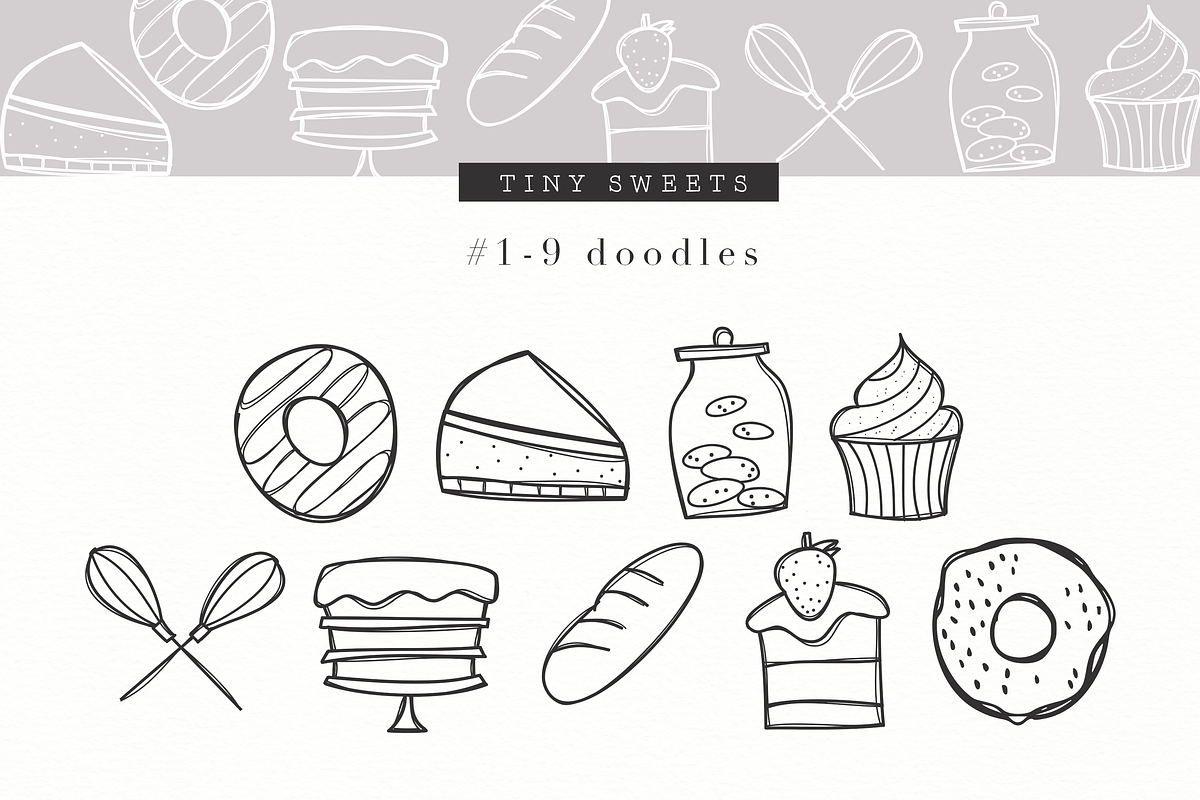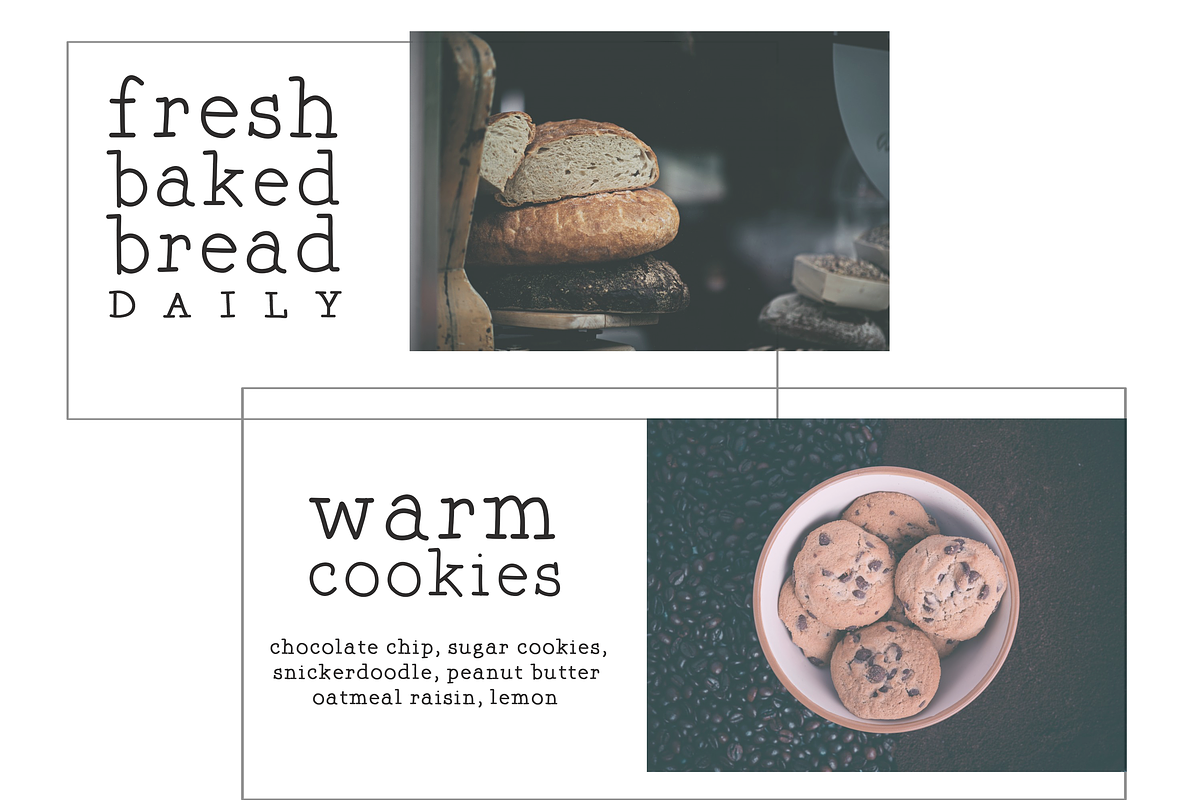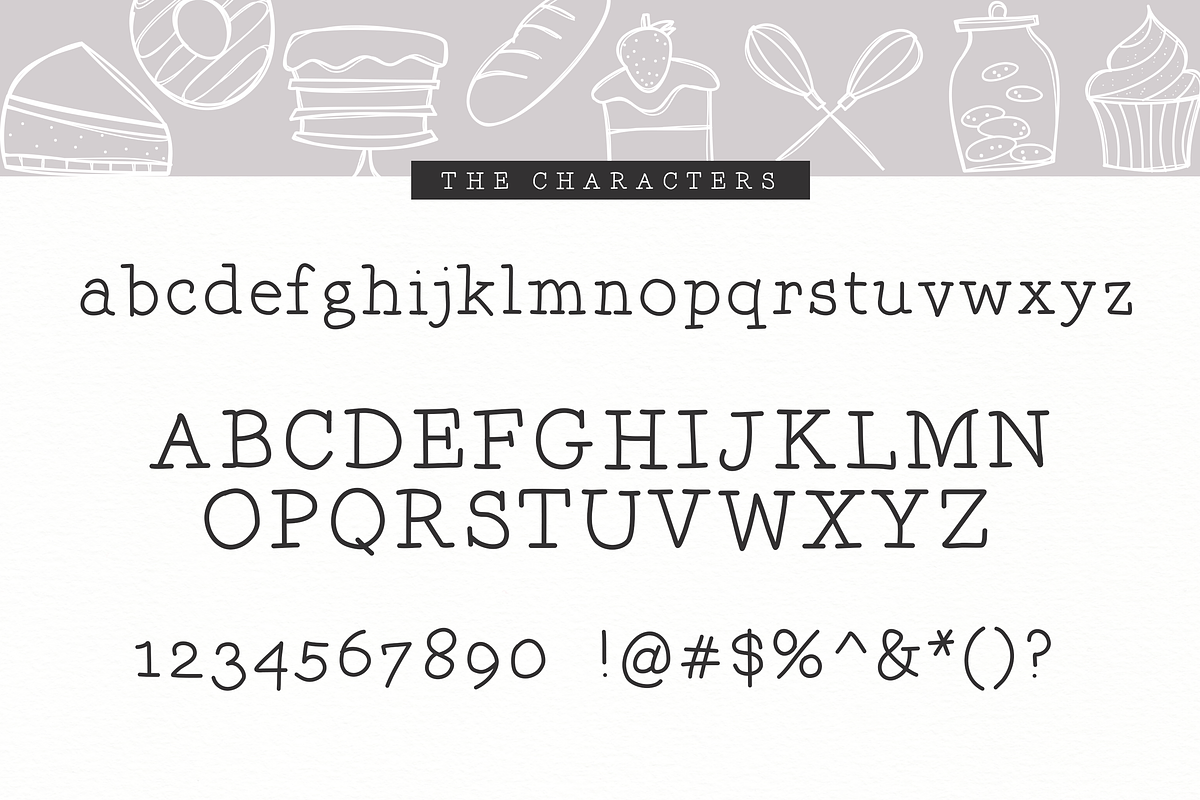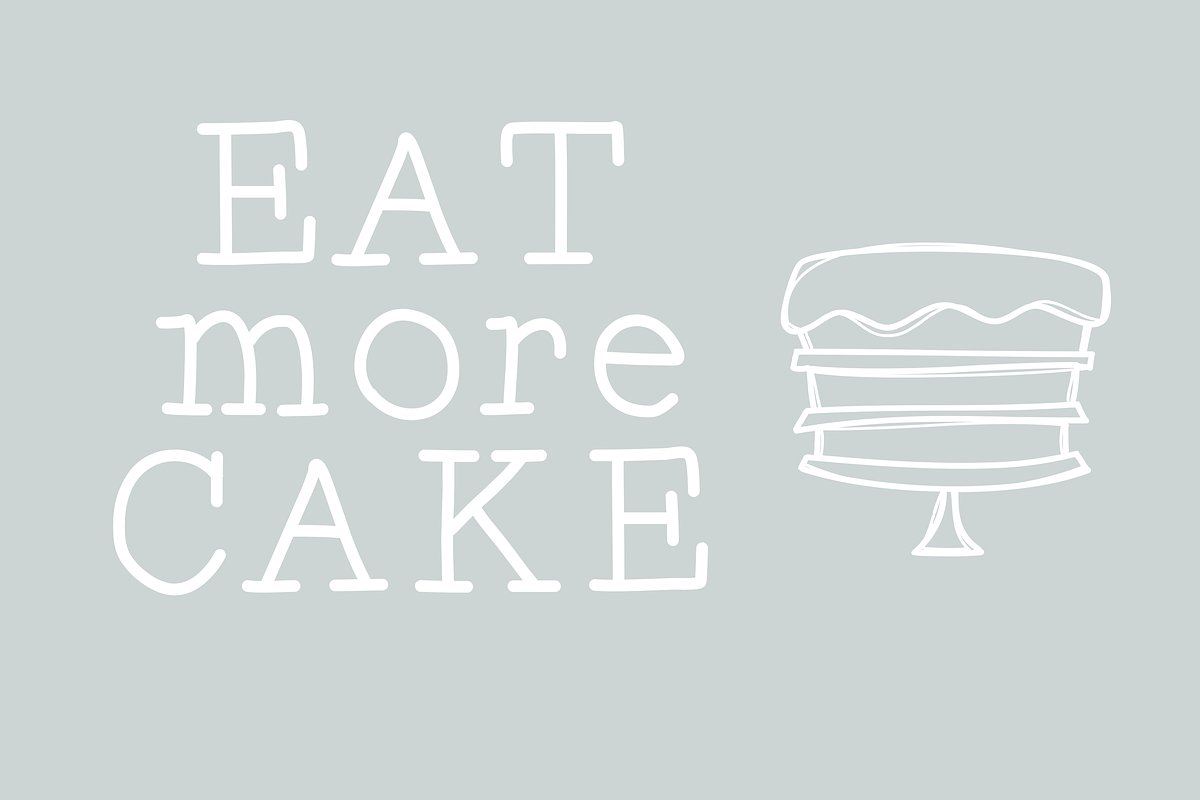
The Bakery - Serif and Doodle Font
The Bakeryis a handwritten serif font. Tiny Sweetsis a mini doodle font. After installing this font, using the numbers 1-9 - you will be able to access the bakery doodles!
This font is perfect for quotes, headings, blogs, logos, invitations and more!
- The Bakery Font Duo includes one lettering font and one mini doodle font.